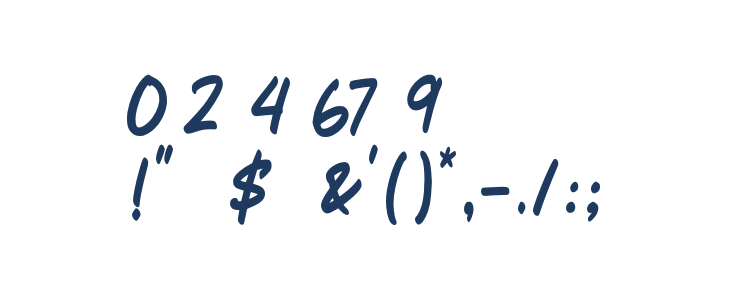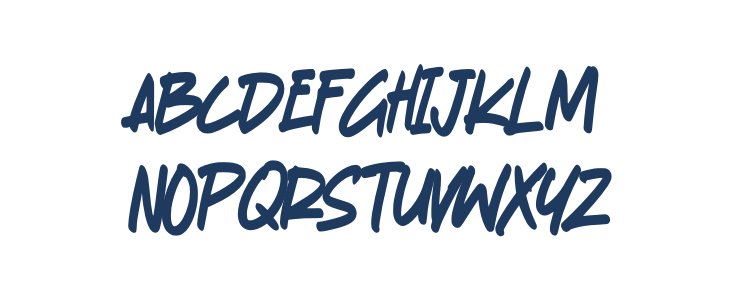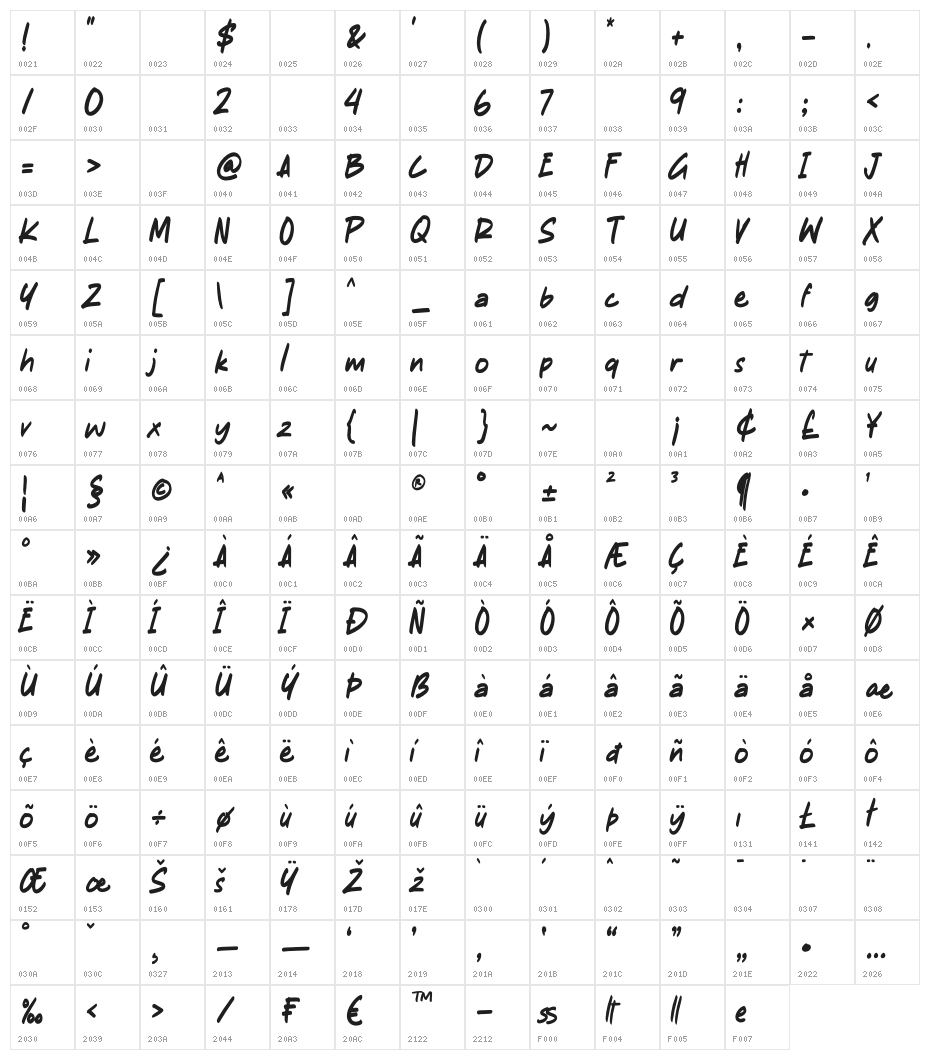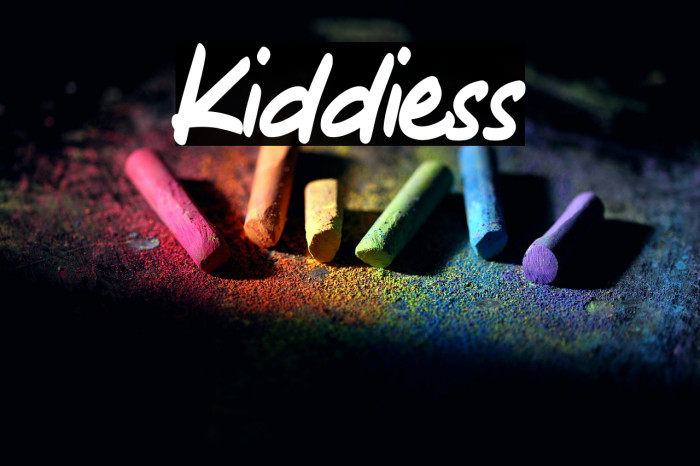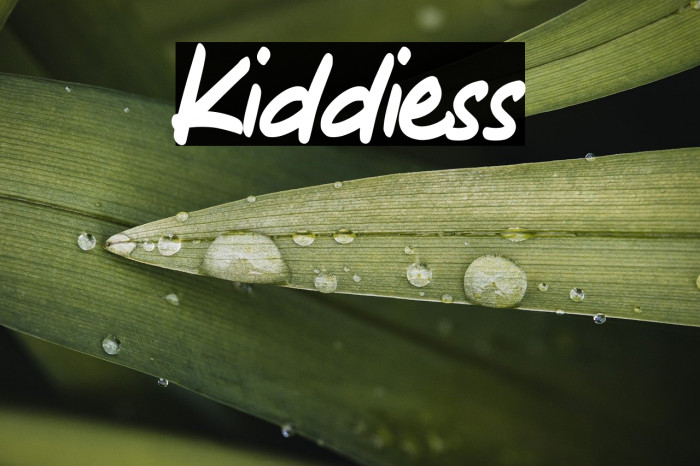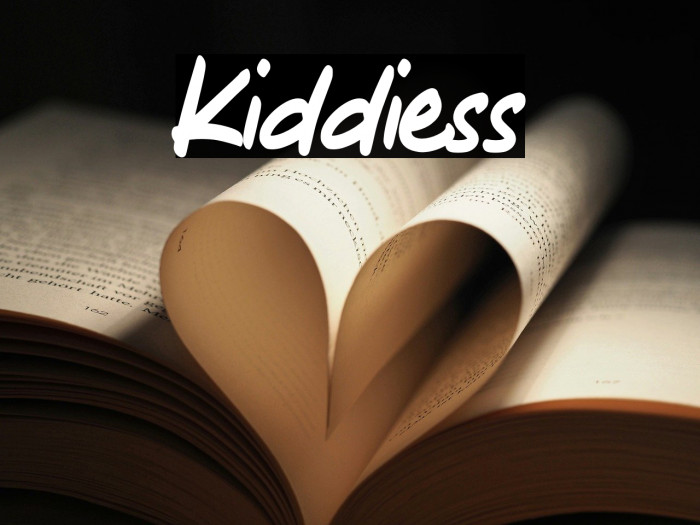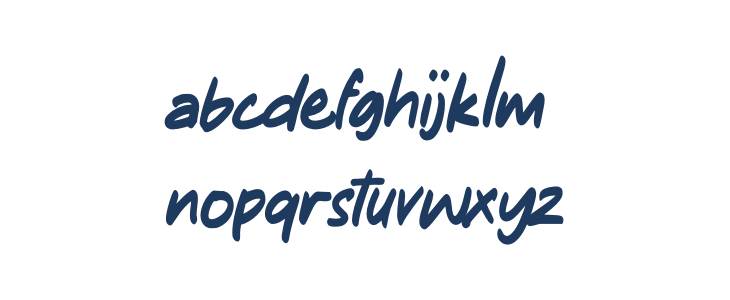
Kiddiess Font
Kiddiess Description
A playful, handwritten script font with bold, rounded strokes and a casual, energetic appearance. The letters are slightly slanted and have a natural, free-flowing style, mimicking marker or brush pen writing.
| Overall Style | Playful, Casual, Energetic |
| Use Case | Headlines, Logos, Posters, Children's materials |
| Proposed Projects | Children's books, playful branding, posters, greeting cards, educational materials. |